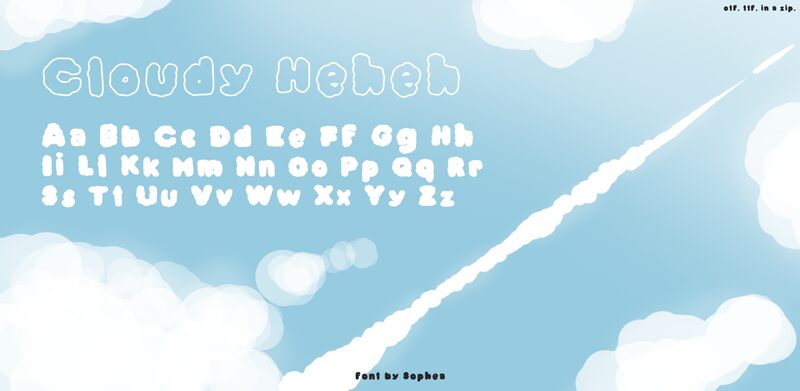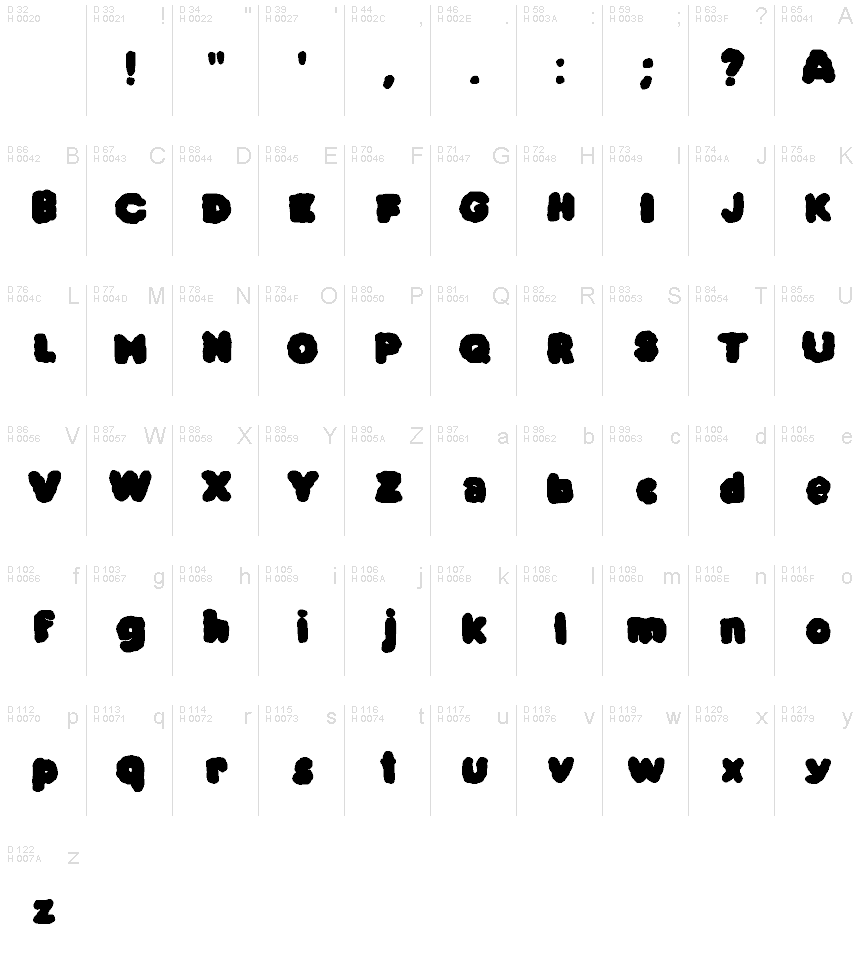
Cloudy Heheh Regular
Cloudy Heheh font by Sophea is a display typeface that packs a bubbly and playful appearance. It has casual aesthetics with rounded corners subtle at some instances and more dramatic in others. The font style carries an overall cartoon effect filled with liveliness, lightheartedness, and other lovable child-like connotations. But Cloudy Heheh’s modern design makes it somehow professional including when used as a logo.